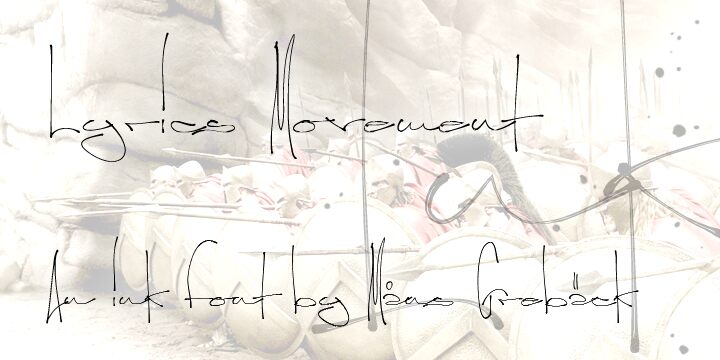
Lyrics Movement by Måns Grebäck is a free graffiti script with hairline strokes and a restless tag-like flow. Its towering loops, abrupt turns, and long horizontal sweeps make the lettering feel fast and deliberately unruly.
Fashion labels and streetwear brands can use it for an expressive signature. It also suits music artwork and event posters tied to club or urban culture. In packaging, the loose scrawl can become a recognizable brand mark rather than ordinary product lettering.